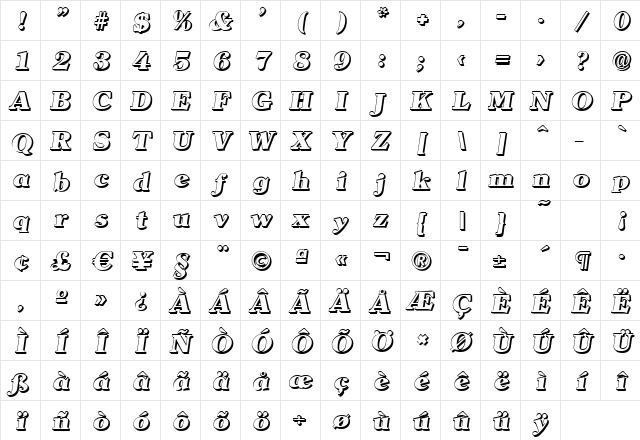
ChristianBeckerShadow-Heavy Italic
Complete ChristianBeckerShadow-Heavy Italic glyph index. Displaying only characters natively supported by ChristianBeckerShadow-Heavy Italic font.
Design Context for ChristianBeckerShadow-Heavy
ChristianBeckerShadow-Heavy is built around its visual character rather than neutral utility - its distinctive forms are designed to make an impression at display sizes. The slanted form adds forward momentum and visual energy.
Font Pairing: Pair with a clean neutral sans-serif for body copy to let ChristianBeckerShadow-Heavy's character lead without overwhelming the composition.
Pro Tip: Use ChristianBeckerShadow-Heavy exclusively at display sizes - it was designed to be seen, not read at length. Let a neutral companion handle body copy.